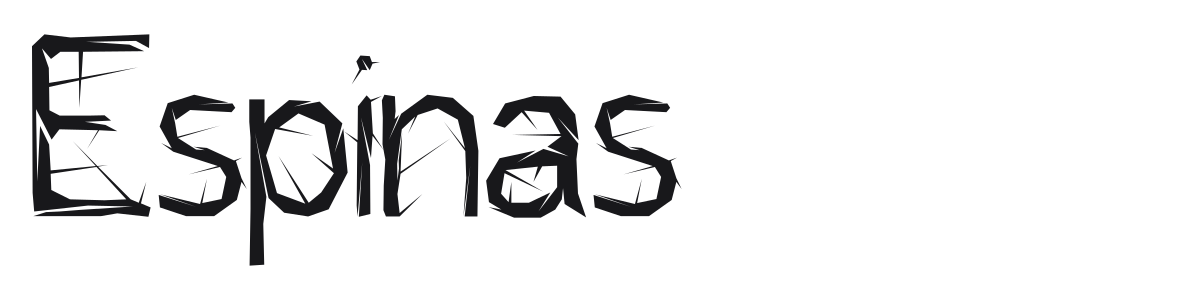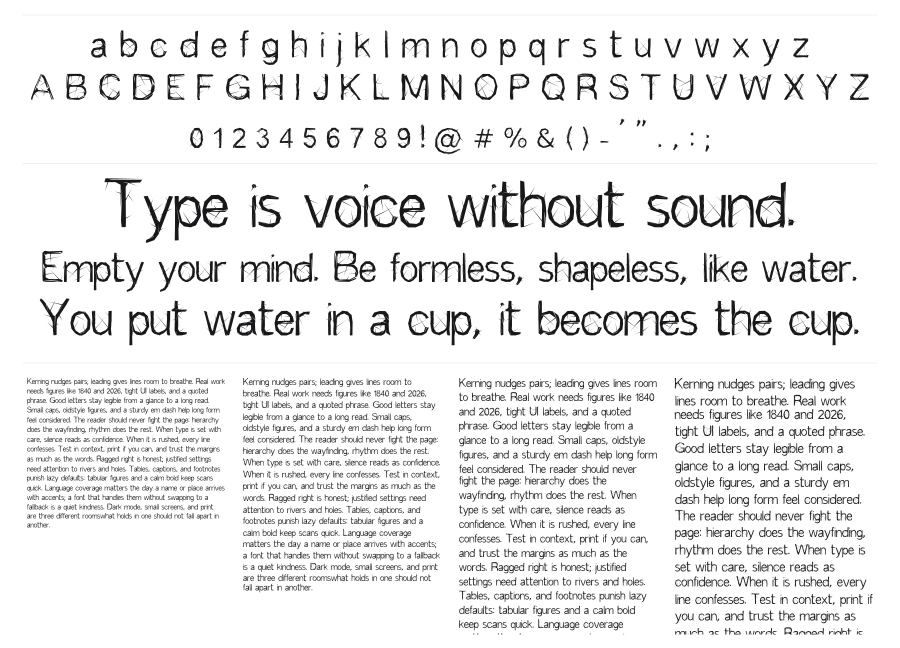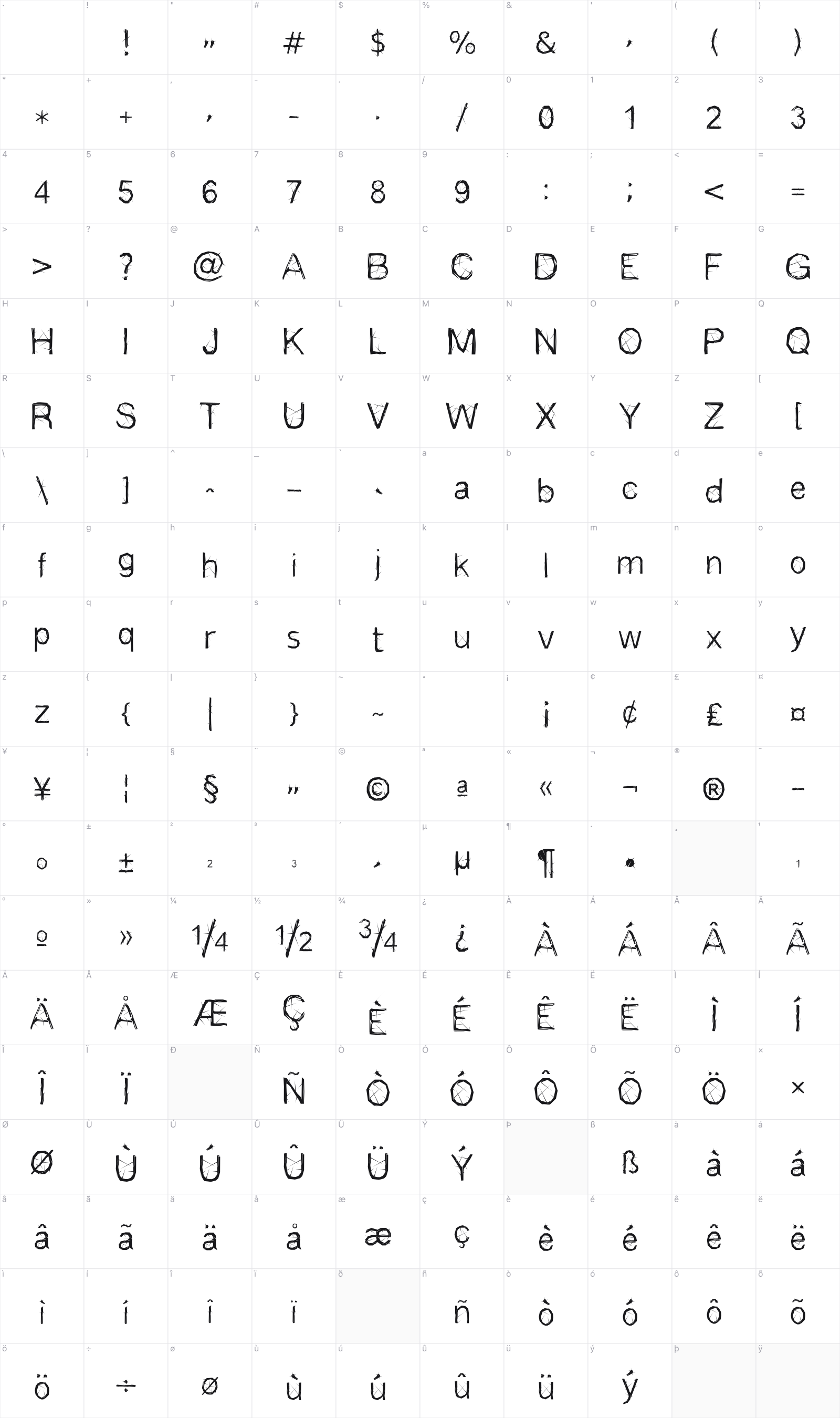
Espinas
Espinas is a distressed display font built from fractured, thorn-like strokes that look like letters scratched through cracked wood or broken glass. The irregular splinters cutting across each character give it a distinctly unsettling, aggressive energy. It reads clearly at headline sizes while maintaining its chaotic texture.